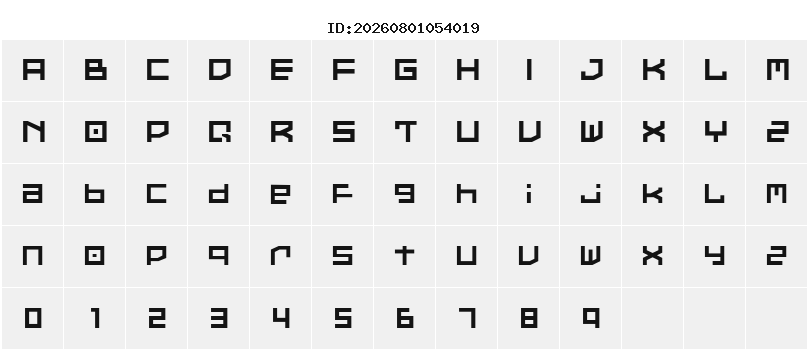
• Font Name: LVDC Common
• Full Font Name: LVDC Common
About LVDC Common.ttf
LVDC Common.ttf is a modern, elegant sans-serif font designed for ultimate readability and visual harmony. Perfect for branding, headlines, web design, and print materials.